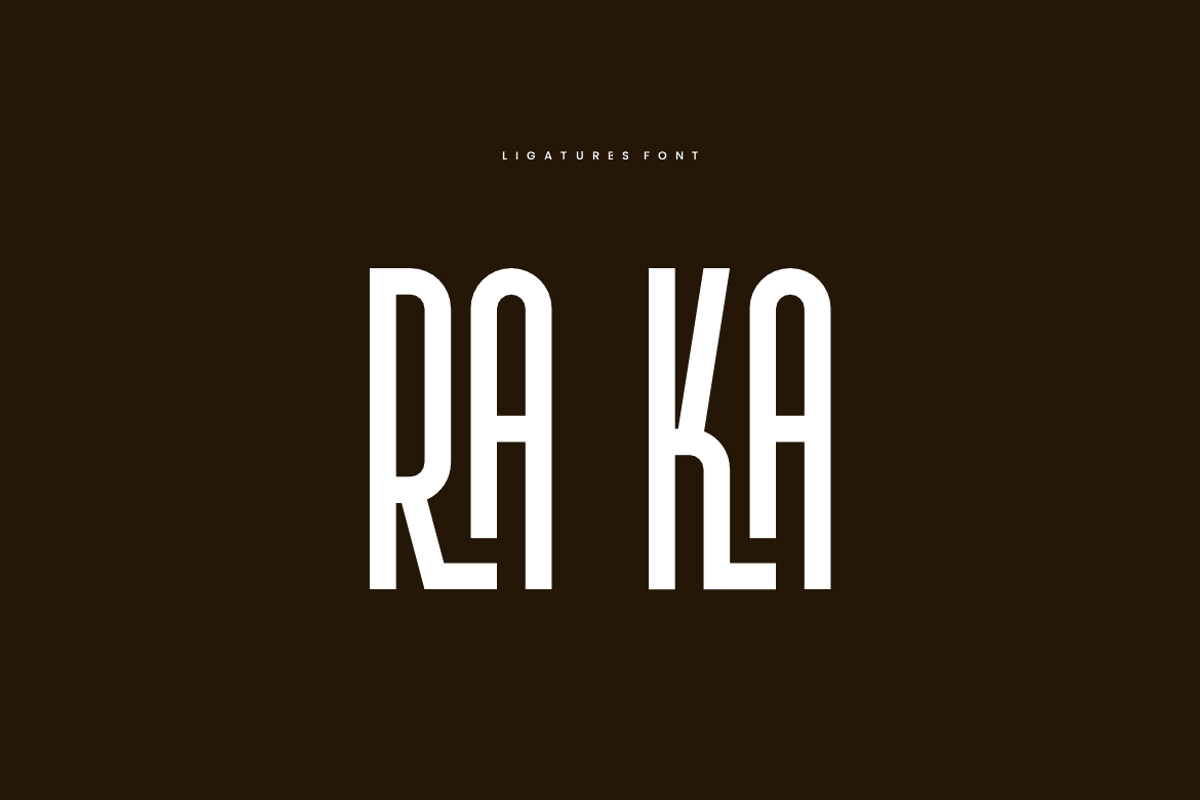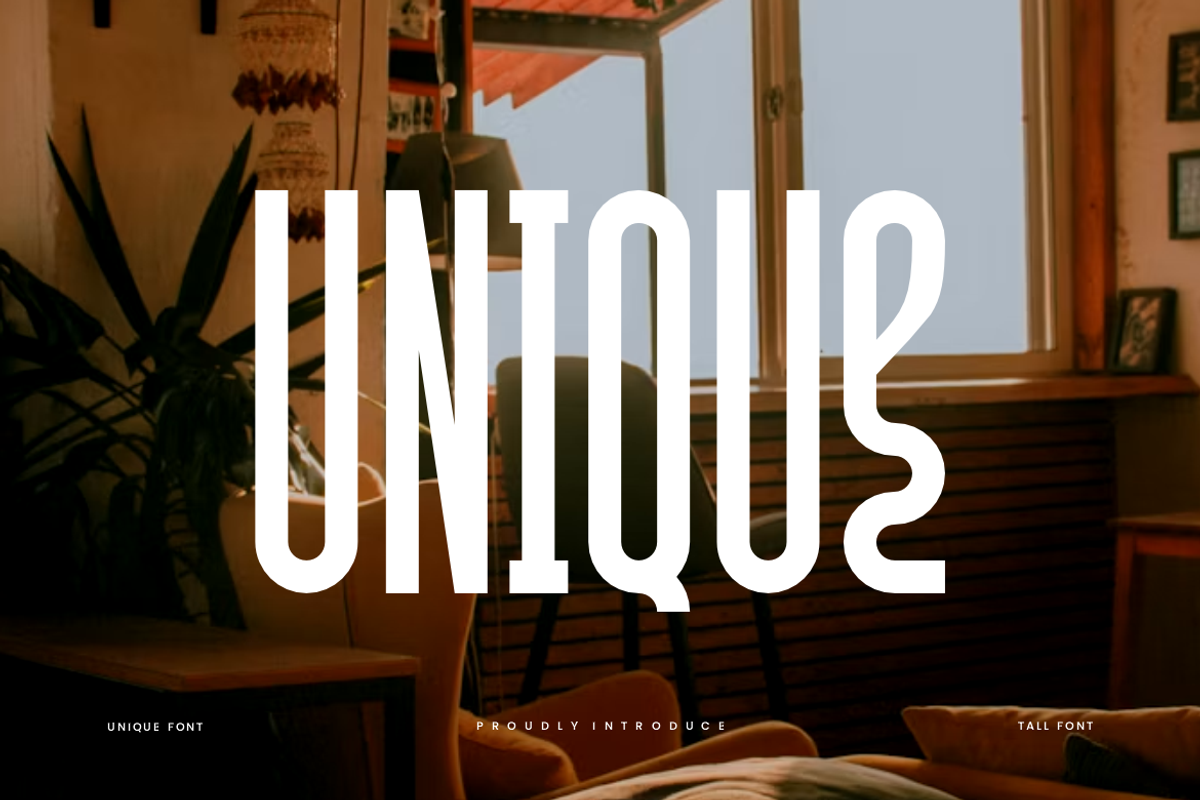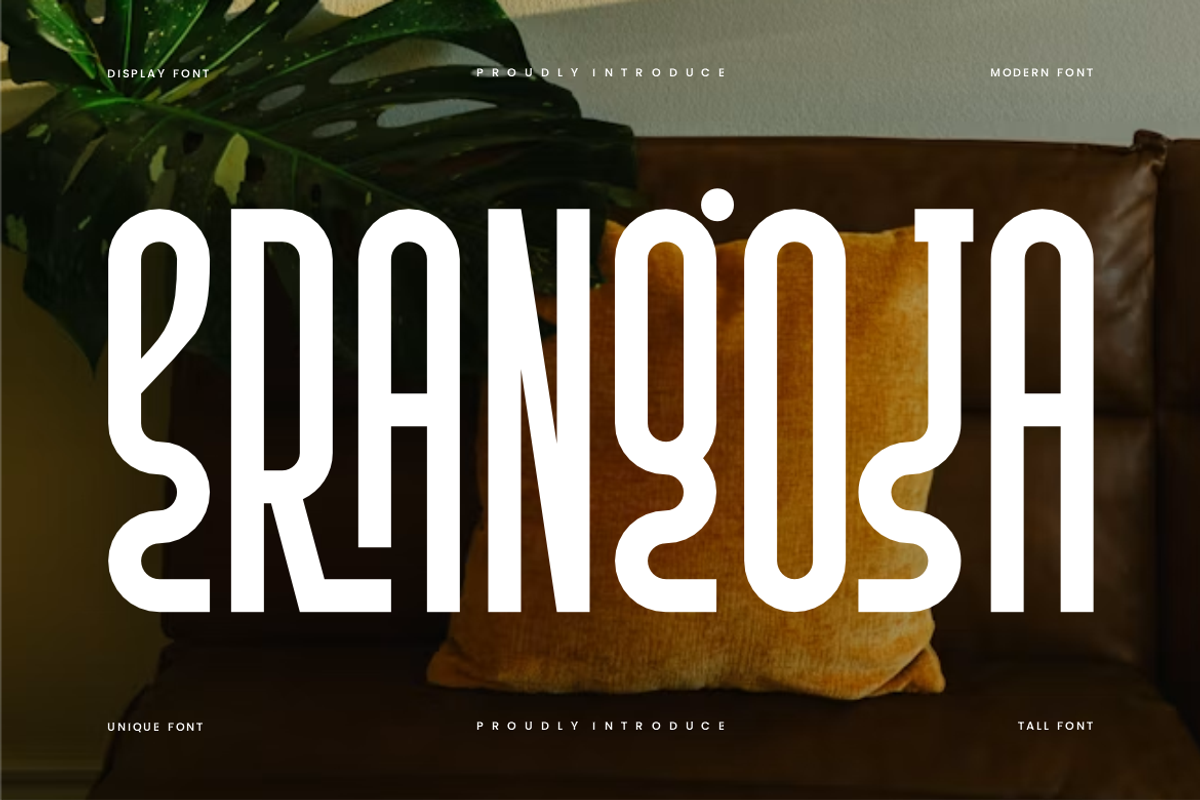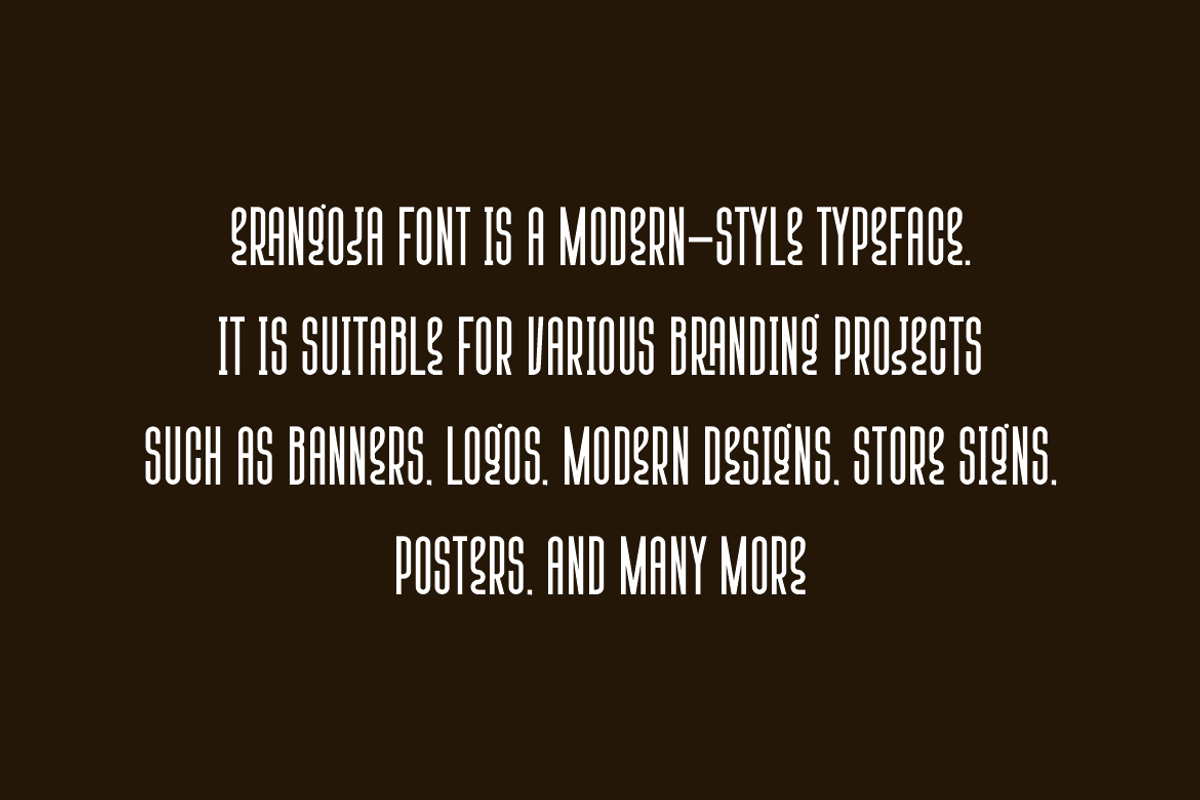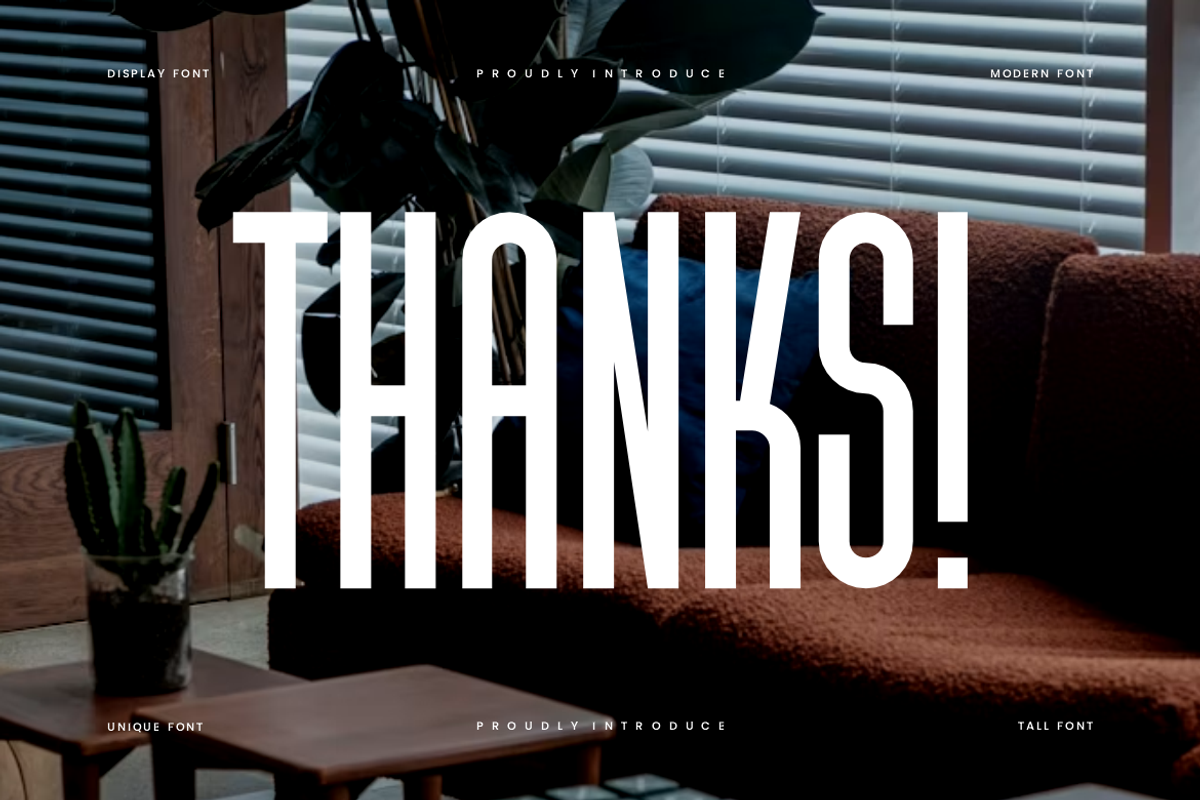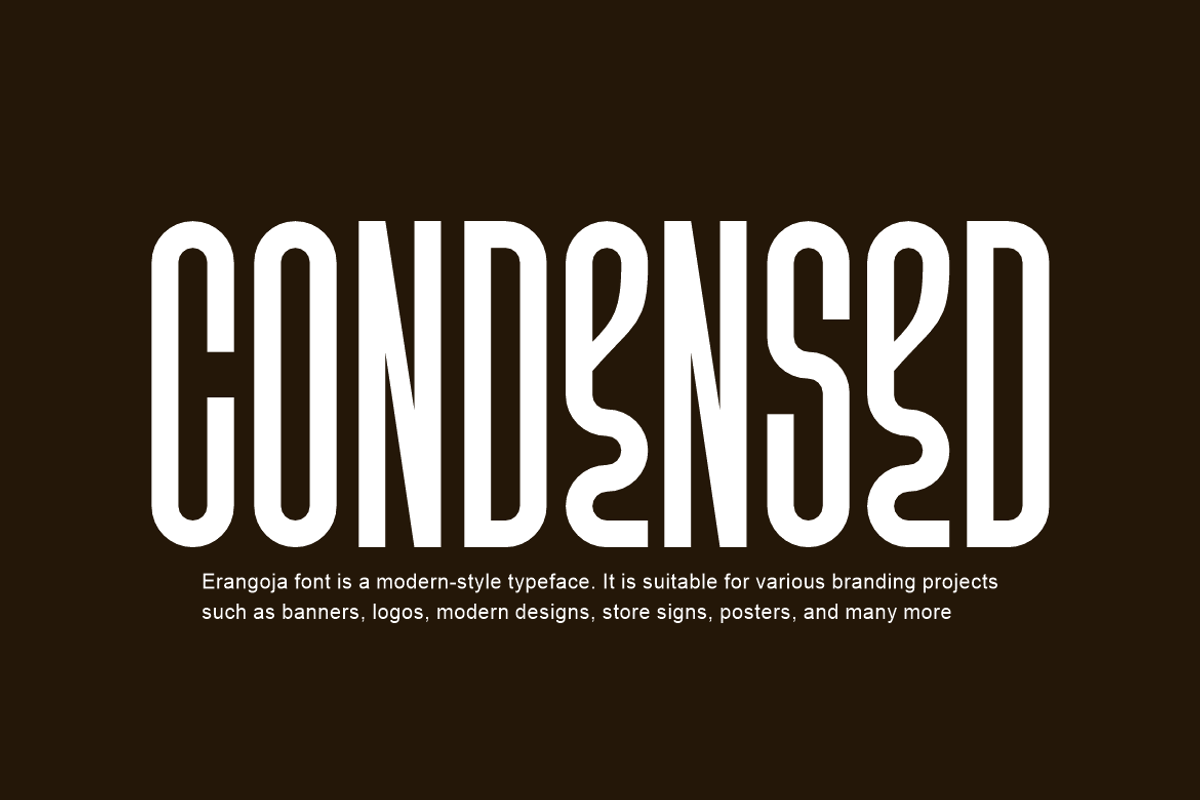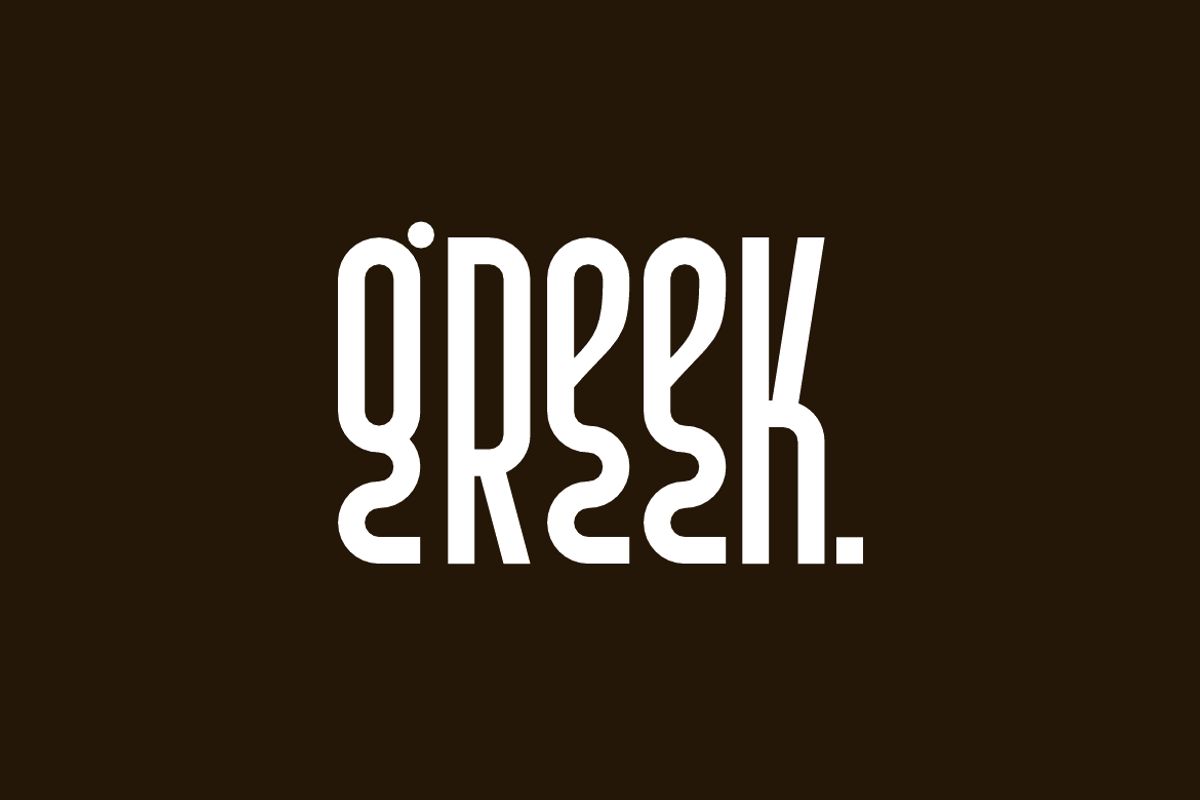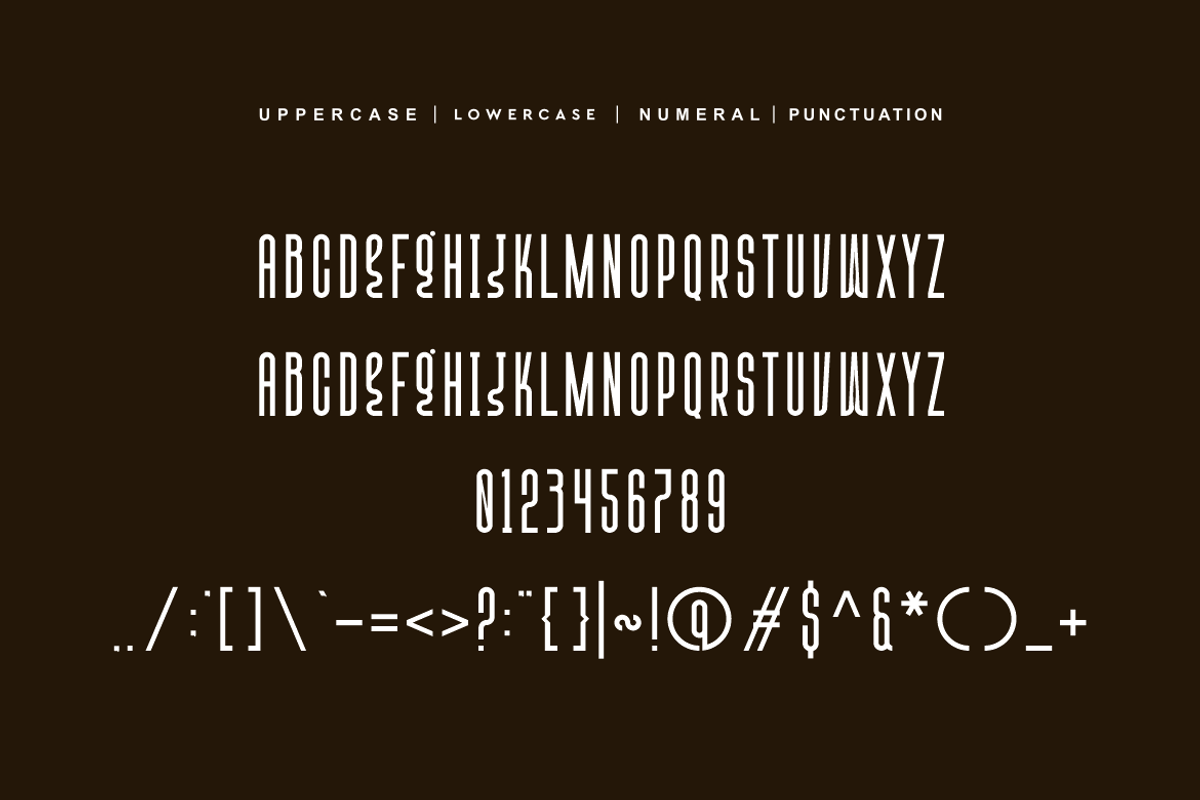
Erangoja - Unique Condensed Font
Erangoja Font is a Modern and authentic display typeface.
It’s perfect for various branding projects such as logos, modern designs,
and more. This font stands out beautifully in a wide range of contexts.